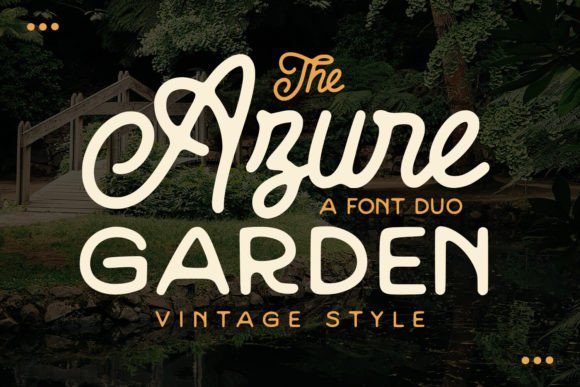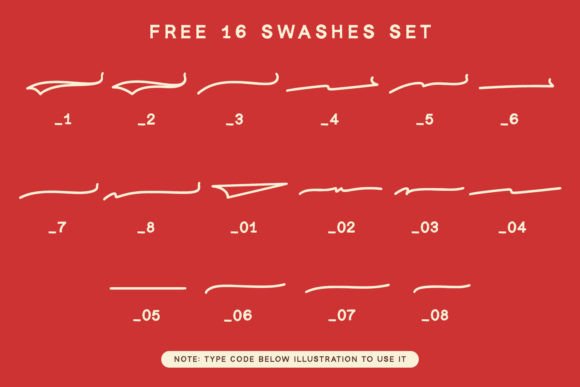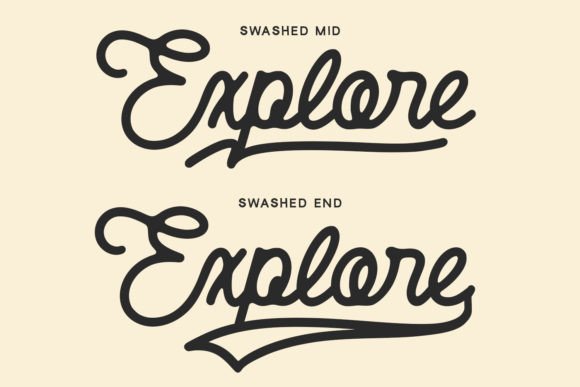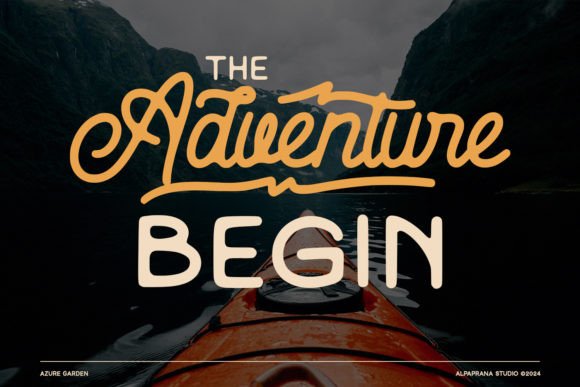
Azure Garden Font
About the Azure Garden Font
Explore the possibilities with Azure Garden Font, a font that offers both beauty and functionality. Azure Garden is a vintage script font exuding timeless charm and elegance. Its graceful curves and stylish flourishes evoke the beauty of bygone eras, making it perfect for wedding invitations, branding, and nostalgic designs. With its classic appeal, Azure Garden adds a touch of sophistication to any project.
Azure Garden’s elegant flourish is ideal for projects requiring a touch of vintage sophistication. It excels in headlines, logos, short text blocks on packaging, and wedding stationery where its refined curves shine. However, its decorative nature makes it unsuitable for body text or UI elements; readability suffers in extended use.
Pairing Azure Garden effectively requires a contrasting typeface. A clean sans-serif like Lato or Open Sans provides a modern counterpoint for balance, while a classic serif like Garamond adds to the vintage aesthetic. For a more playful feel, consider pairing it with a geometric sans-serif like Montserrat.
The font projects an overall mood of refined elegance and classic charm, best suited to brands emphasizing heritage, quality craftsmanship, or romantic notions.
Azure Garden Font Usage Examples
Azure Garden Font Example